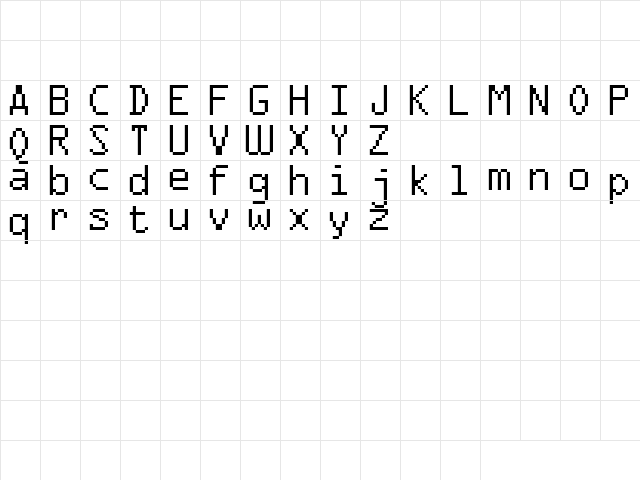
FFF Agent Condensed Regular
Design Context for FFF Agent Condensed Typeface
FFF Agent Condensed takes a measured approach to typography — its balanced proportions and neutral character make it a reliable workhorse for both digital and print work. The condensed width makes it efficient for tight spaces without sacrificing legibility.